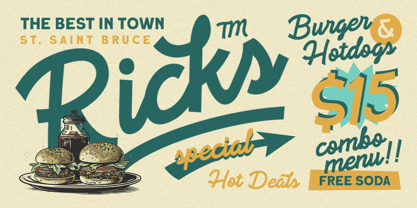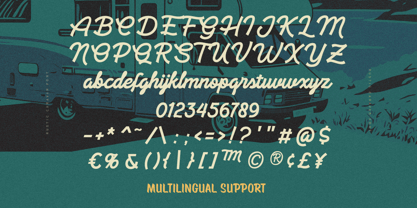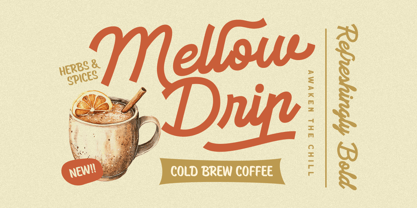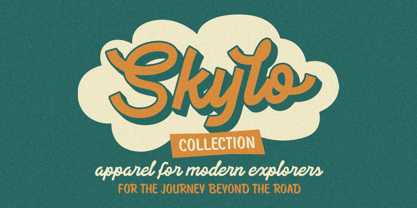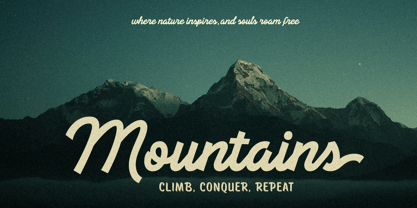
Rustic Caravan
von Letterhend
Die Schriftfamilie Rustic Caravan wurde von Hendry Juanda entworfen und von Letterhend veröffentlicht. Rustic Caravan enthält 1 Stile. Mehr über diese Familie
Rustic Caravan is a casual monoline script display font. This font perfectly made to be applied especially in logo, and the other various formal forms such as invitations, labels, logos, magazines, books, greeting / wedding cards, packaging, fashion, make up, stationery, novels, labels or any type of advertising purpose.
Features :
• Uppercase & lowercase
• Numbers and punctuation
• Alternates Character
• Multilingual support
Designer: Hendry Juanda
Foundry: Letterhend